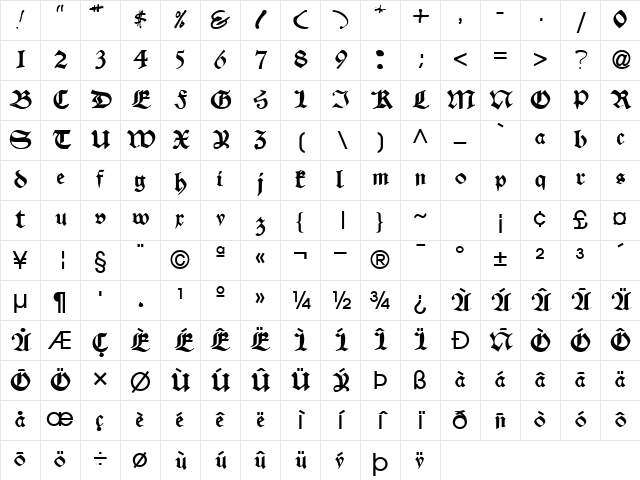
Complete SlashTankMaker33 Bold glyph index. Displaying only characters natively supported by SlashTankMaker33 Bold font.
SlashTankMaker33 is a composed and adaptable typeface that performs quietly and consistently across a wide range of design contexts. Its bold stroke weight gives it real presence on the page.